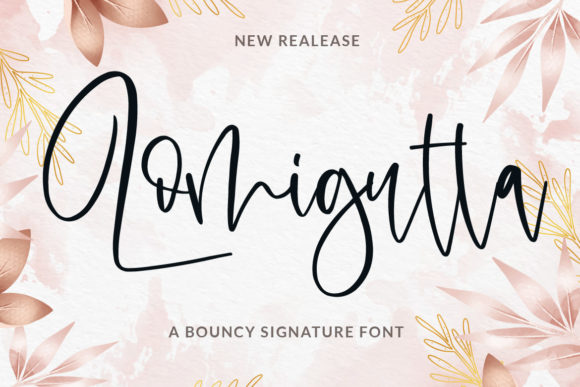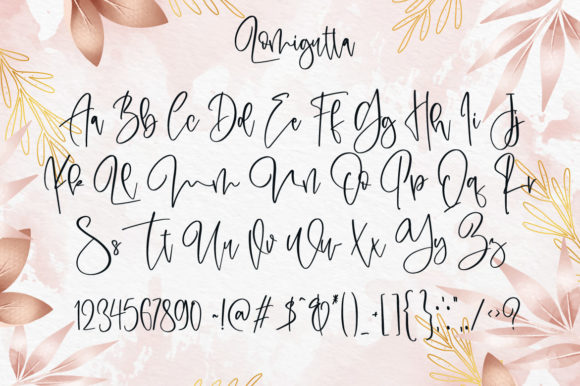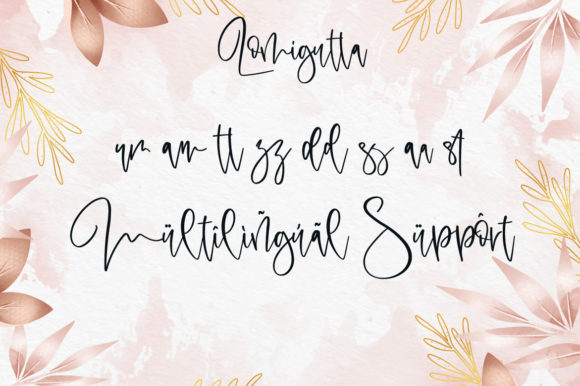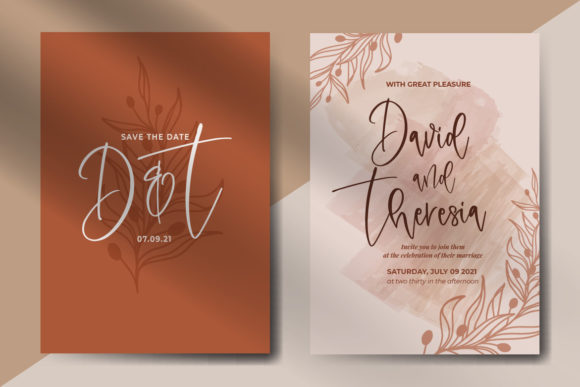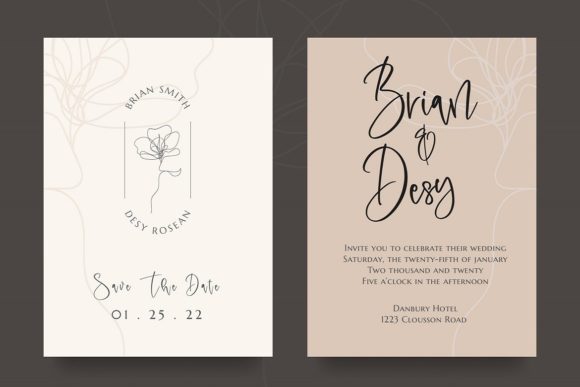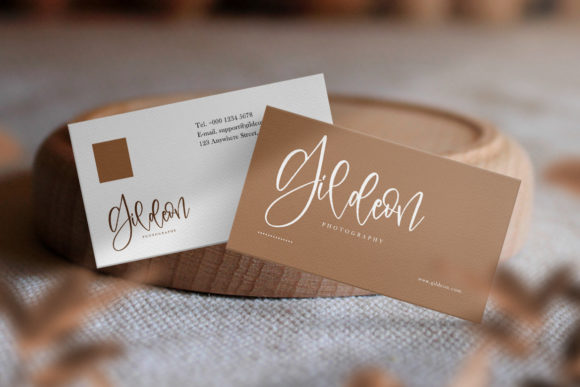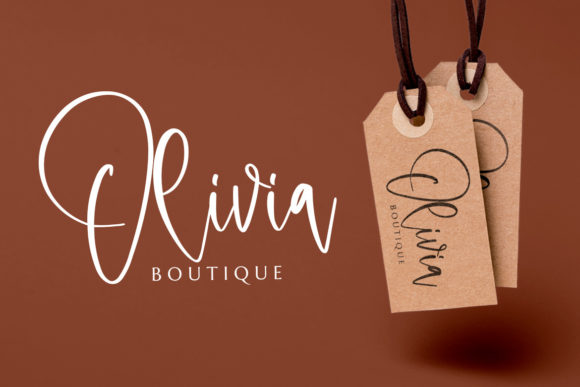
Lomigutta Font
About Lomigutta Font
Lomigutta is a delicate, elegant and flowing handwritten font. It has beautiful and fashionable characters and as a result, it matches a wide pool of designs. Fall in love with its incredibly versatile style and use it to create spectacular designs!